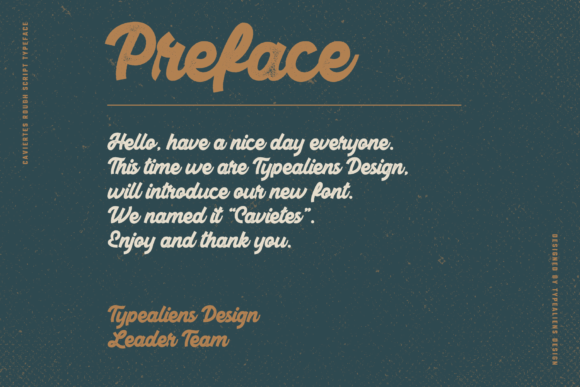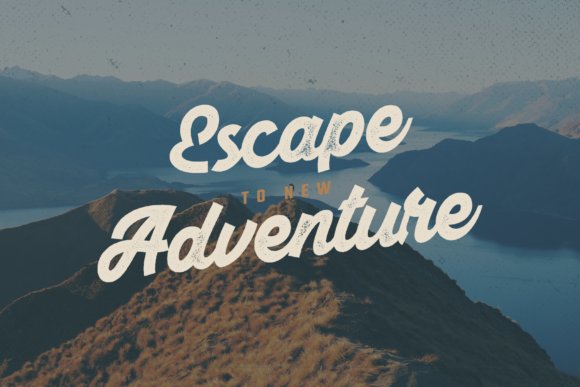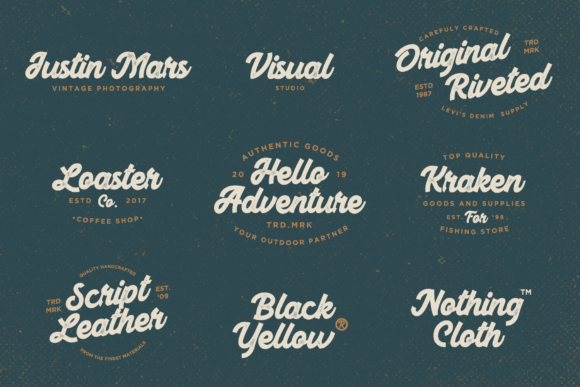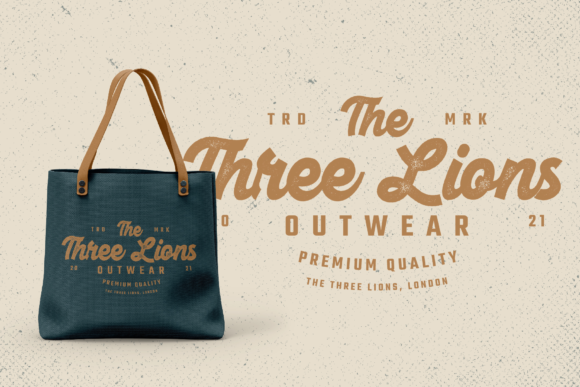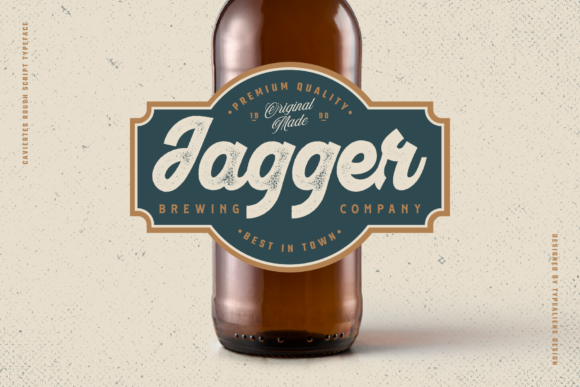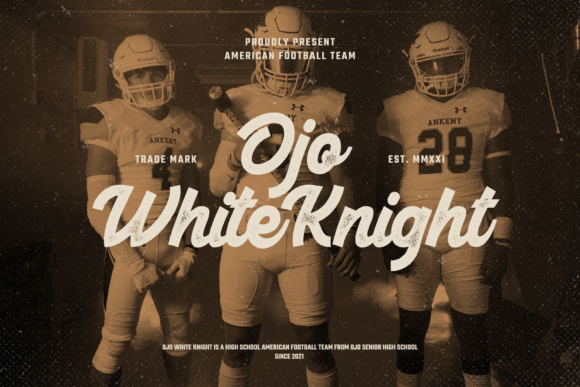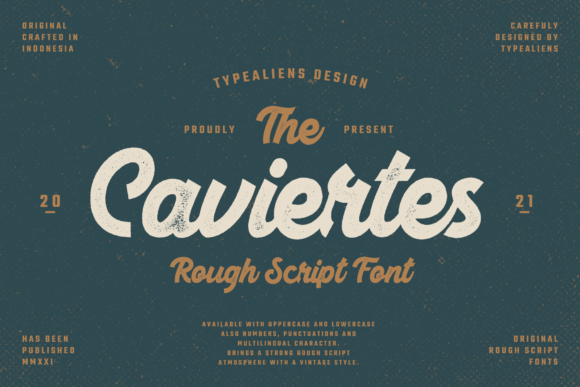
Caviertes Font: Elevate Your Designs with a Stylish and Confident Handwritten Font
Are you looking for a font that can add a touch of style and sophistication to your headlines and logotype projects? Look no further than Caviertes Font, a gorgeous and bold handwritten font that is sure to make your designs stand out. In this article, we’ll take a closer look at Caviertes Font, its features, and how it can elevate your designs.
What is Caviertes Font?
Caviertes Font is a carefully crafted handwritten font that exudes confidence and dynamism. Its bold and stylish design makes it perfect for headlines, logotypes, and any other design project that requires a touch of elegance and sophistication. The font’s unique character and nostalgic feel make it an excellent choice for designers and crafters looking to add a personal touch to their work.
Key Features of Caviertes Font
- Bold and Stylish Design: Caviertes Font boasts a bold and stylish design that is sure to make your headlines and logotypes stand out.
- Handwritten with Care: The font is carefully crafted to give it a personal and unique touch.
- Confident and Dynamic: Caviertes Font reads as strong, confident, and dynamic, making it perfect for designs that require a sense of authority.
- Nostalgic Character: The font’s classic design adds a touch of nostalgia to your designs, making them more relatable and engaging.
Who Can Benefit from Caviertes Font?
Caviertes Font is an excellent choice for a wide range of designers and crafters, including:
- Graphic Designers: Caviertes Font is perfect for graphic designers looking to add a touch of style and sophistication to their designs.
- Logotype Designers: The font’s bold and stylish design makes it an excellent choice for logotype designers looking to create a lasting impression.
- Branding Experts: Caviertes Font can help branding experts create a unique and memorable brand identity.
- Crafters and Makers: The font’s nostalgic character makes it an excellent choice for crafters and makers looking to add a personal touch to their products.
How to Use Caviertes Font?
Using Caviertes Font is easy and straightforward. Here are a few tips to get you started:
- Pair it with Other Fonts: Caviertes Font can be paired with other fonts to create a unique and visually appealing design.
- Experiment with Colors: The font’s bold design makes it perfect for experimenting with different colors and gradients.
- Use it for Headlines: Caviertes Font is perfect for headlines and titles, where its bold and stylish design can make a lasting impression.
Caviertes Font is a gorgeous and bold handwritten font that can elevate your designs and add a touch of style and sophistication. Its confident and dynamic design makes it perfect for headlines, logotypes, and any other design project that requires a sense of authority. Whether you’re a graphic designer, logotype designer, branding expert, or crafter, Caviertes Font is an excellent choice for anyone looking to add a personal touch to their work.